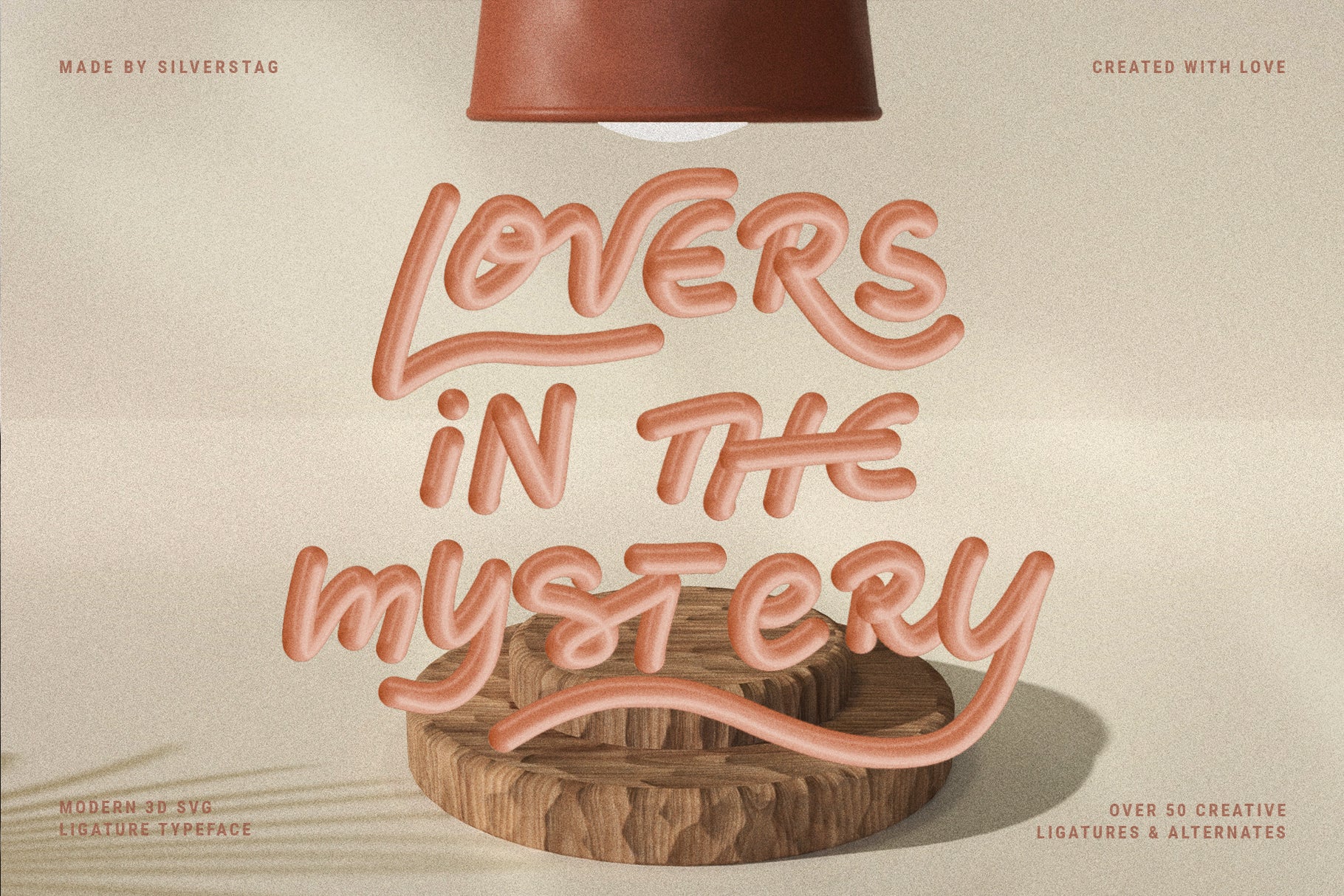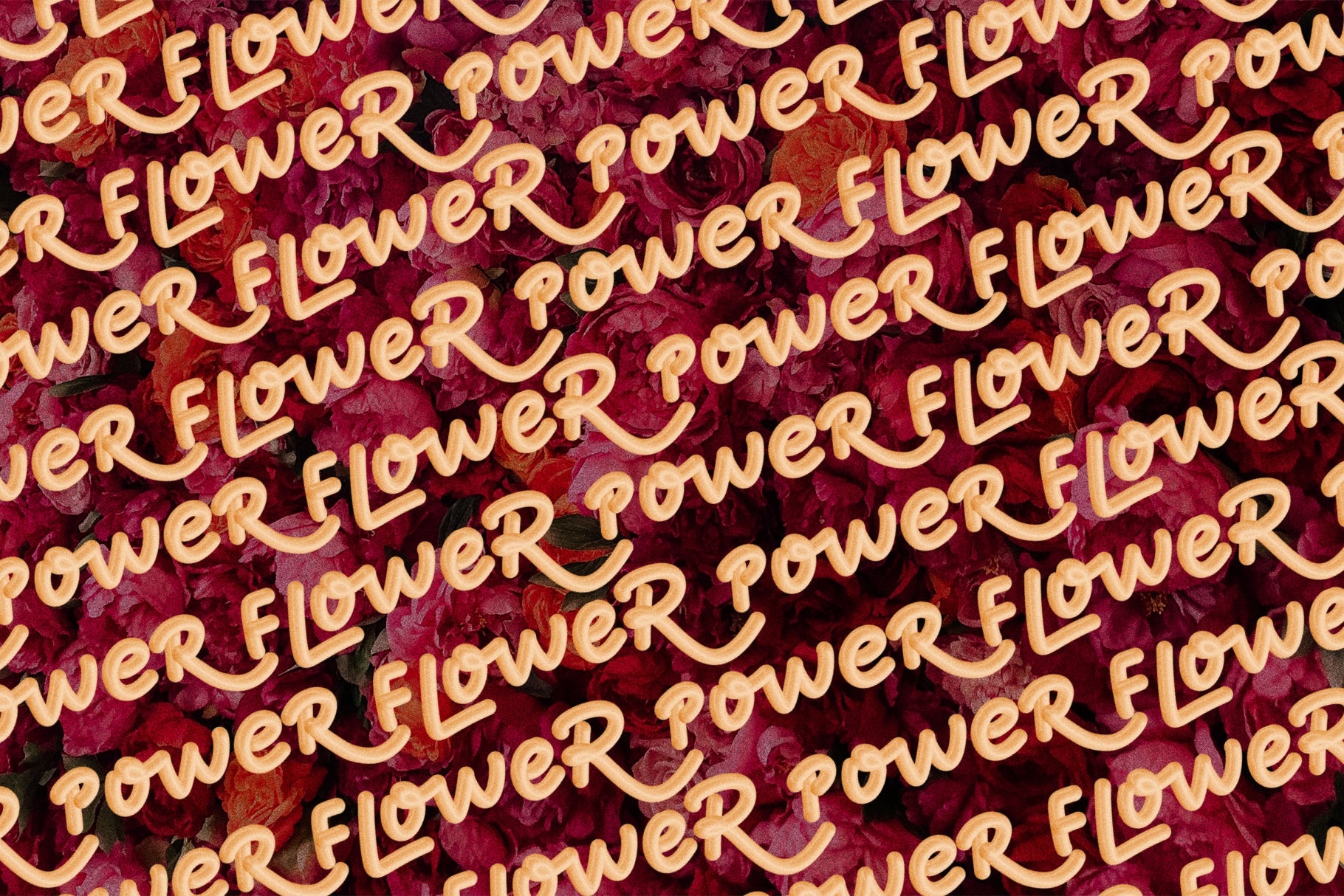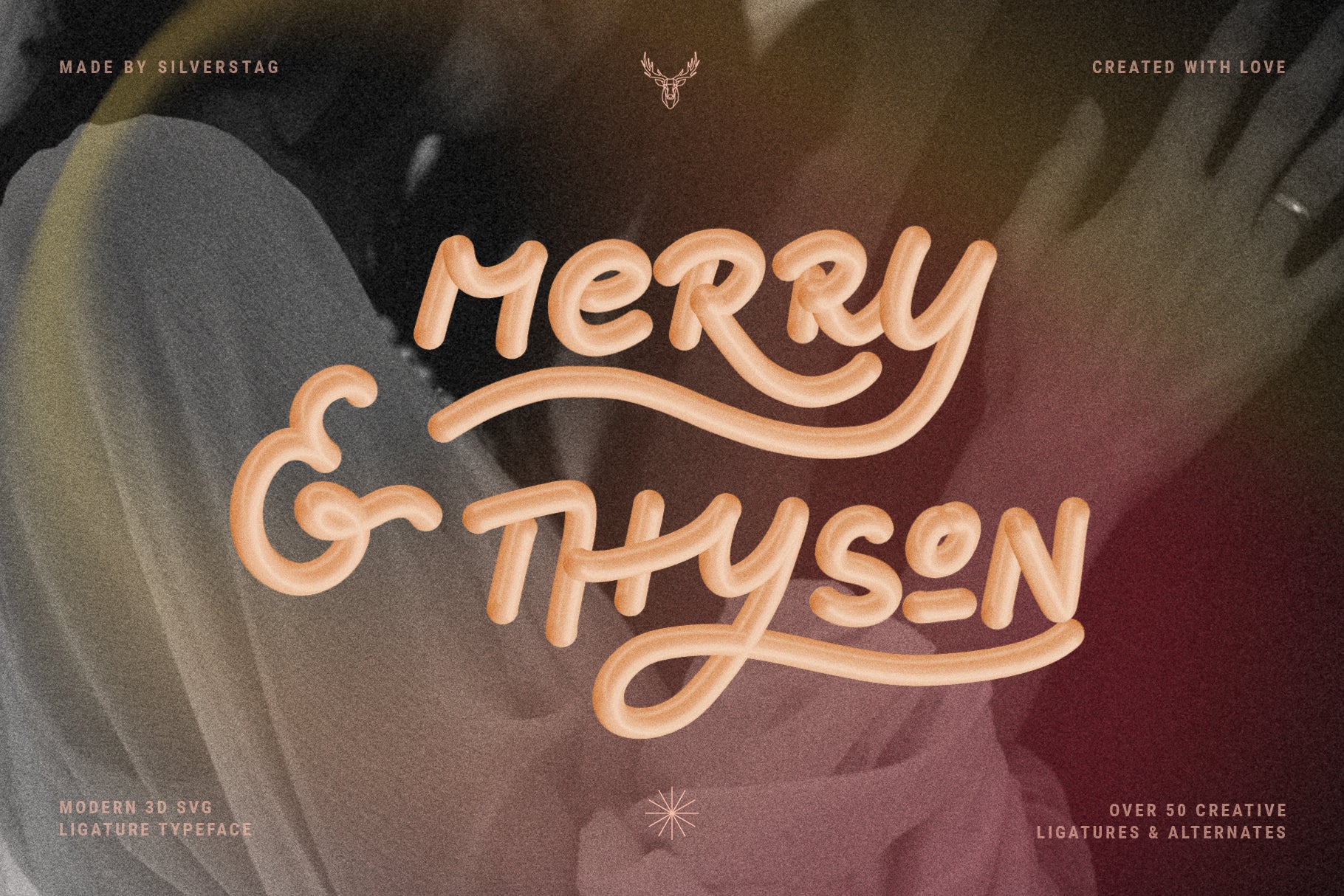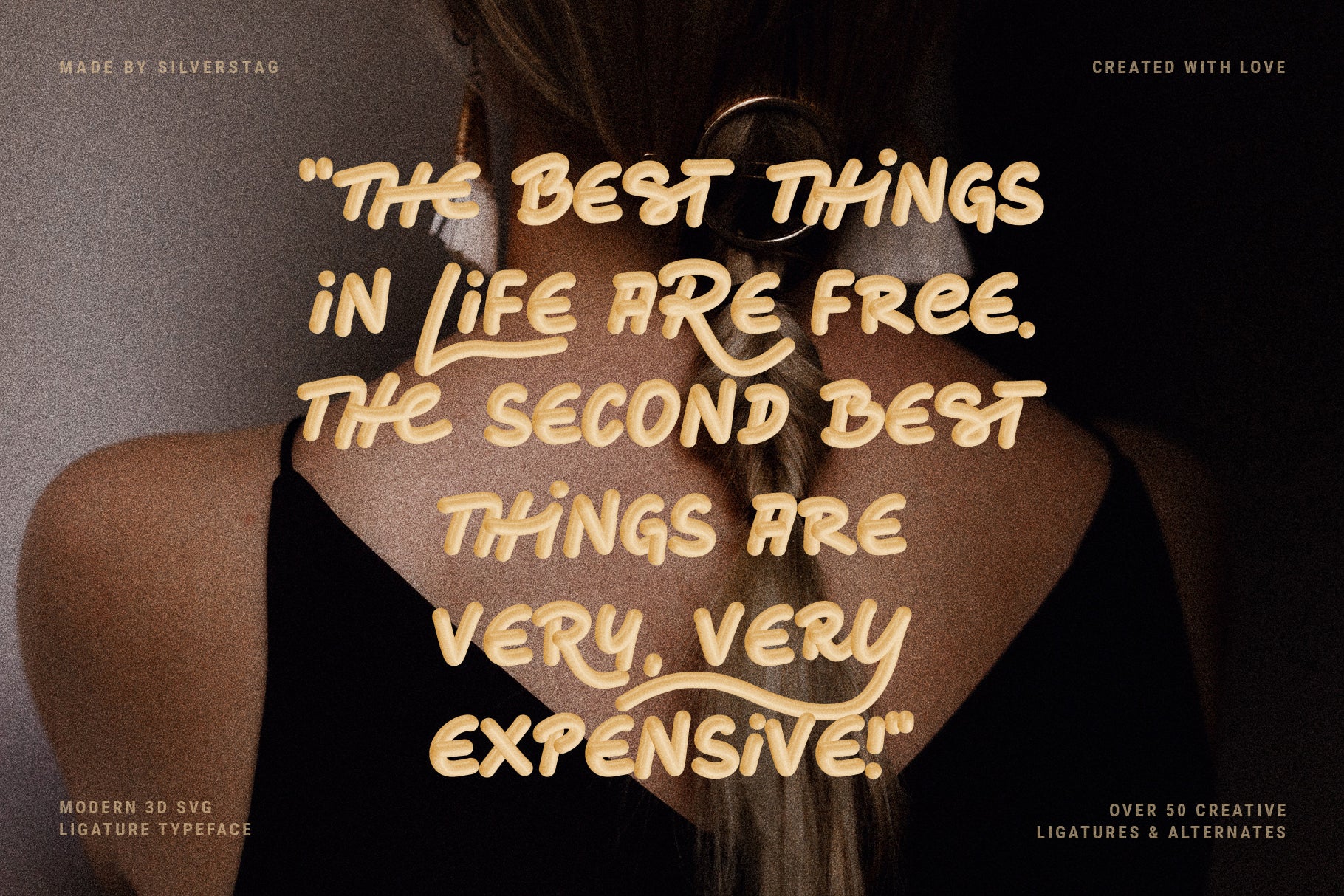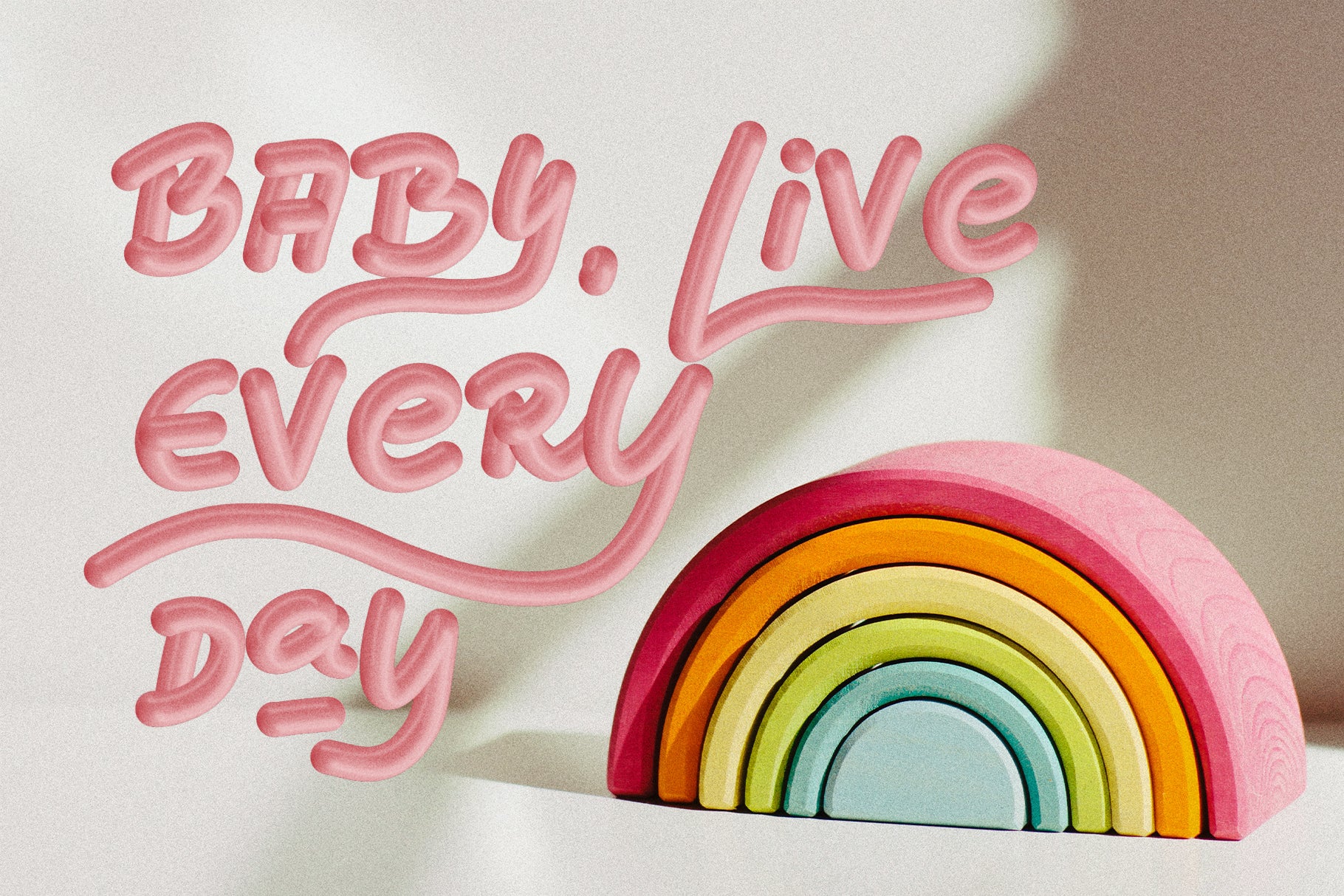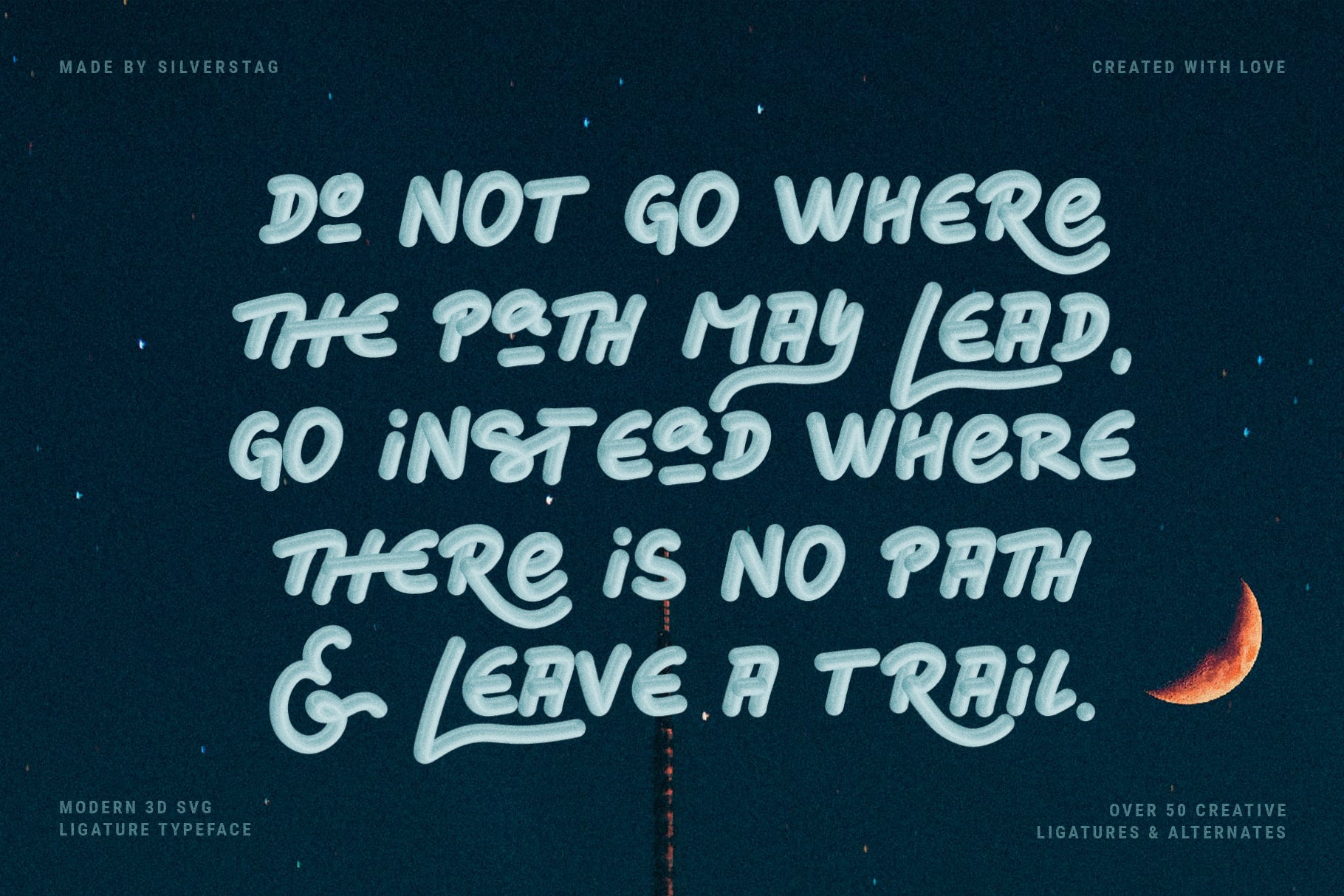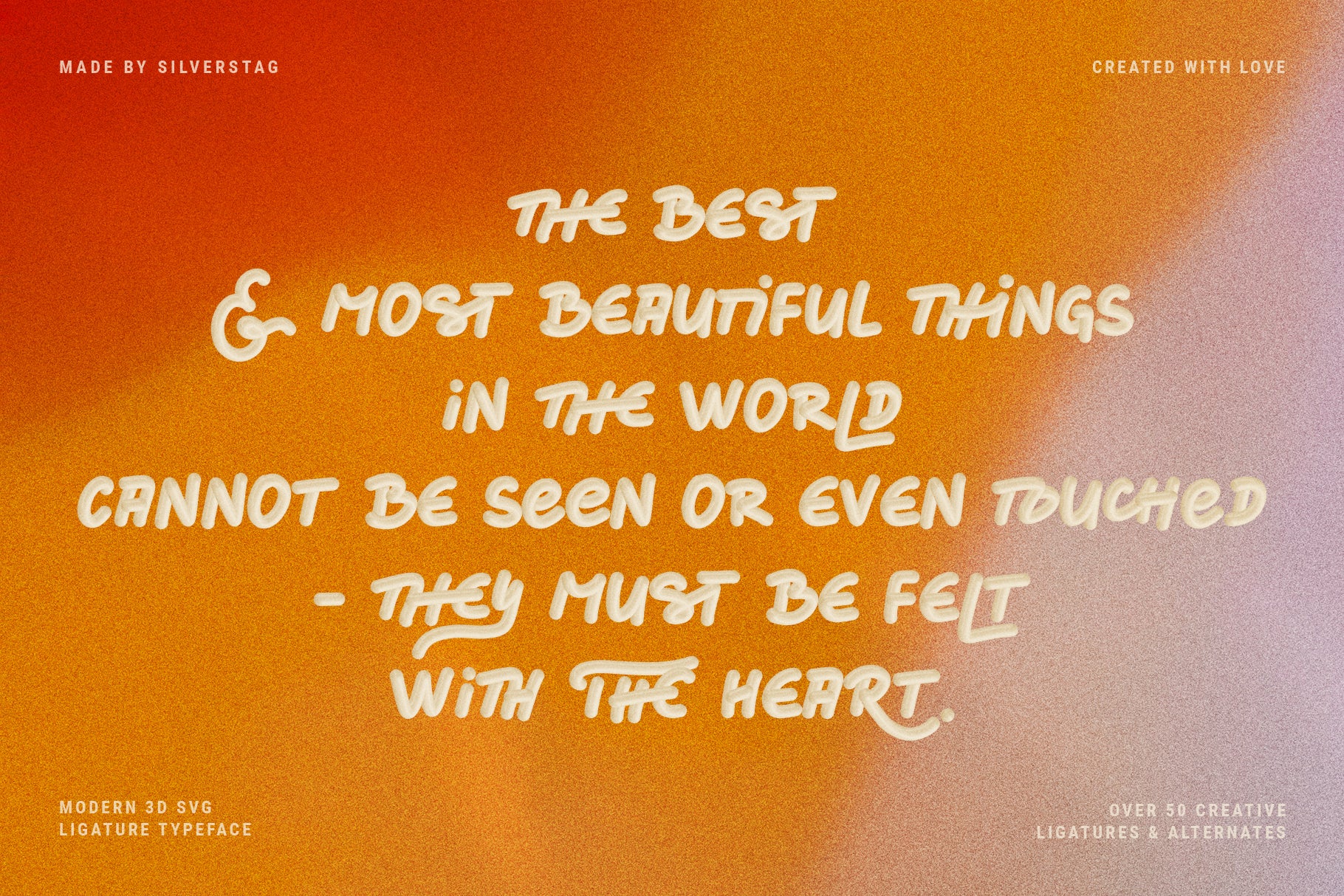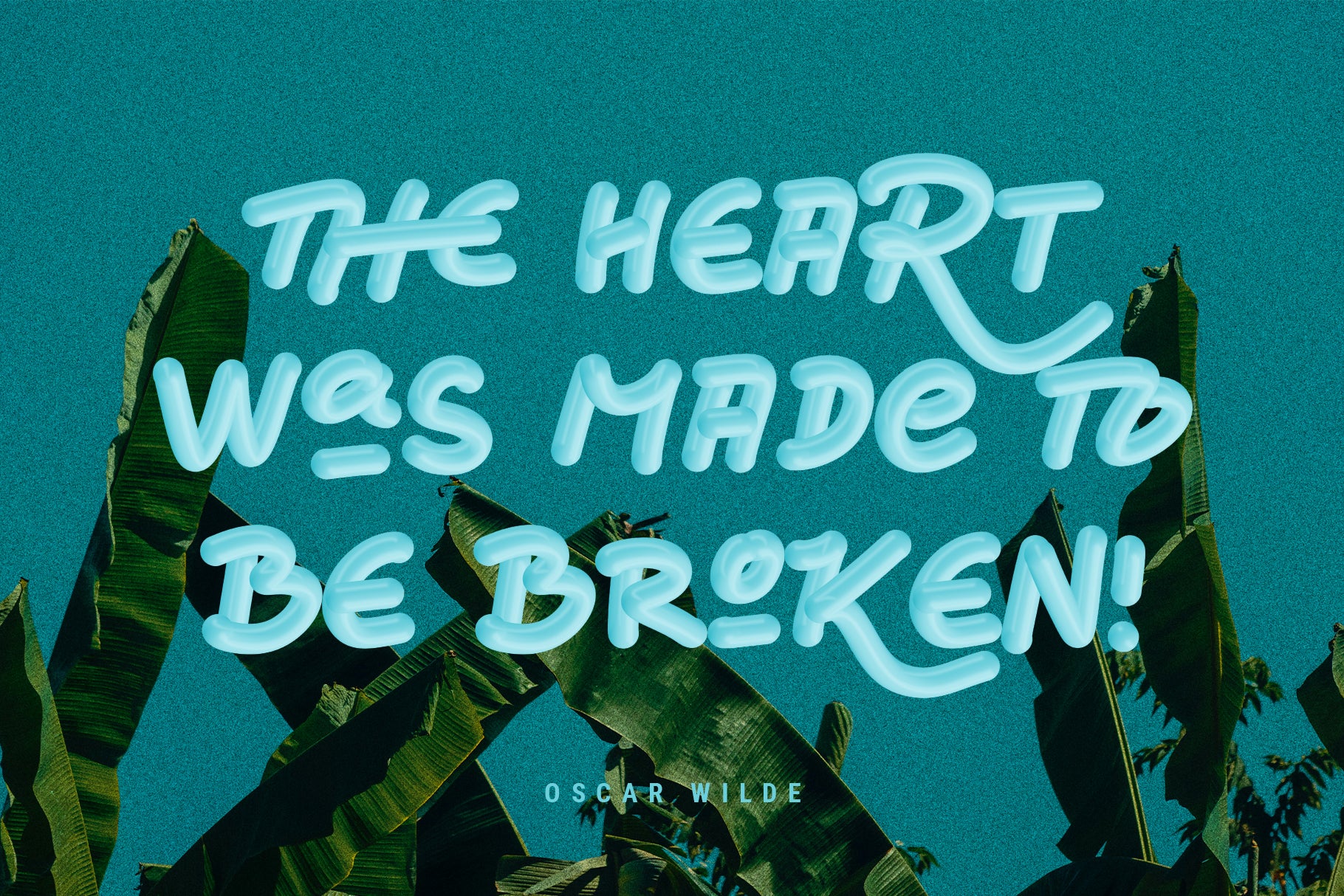
Cherry & Thyme - 3D SVG Typeface
Say hello to Cherry & Thyme, a bold experiment in typography — a truly handwritten 3D SVG font that brings your designs to life with vivid texture and dimension. Perfect for anyone seeking a fresh, playful, and completely unique look, this font captures the spirit of creativity and springtime renewal.
With over 50 unique ligatures and alternates, Cherry & Thyme gives you endless ways to add an authentic hand-crafted touch to your projects. Whether you’re designing standout logos, eye-catching posters, or lively social media graphics, this typeface delivers a dynamic and memorable visual impact.
The font includes both a 3D SVG version—which shows off the rich, realistic brush texture—and a standard version for maximum compatibility and easy use across all design platforms.
Bring your typography to life with the playful spirit of Cherry & Thyme—perfect for creative projects that deserve a bold and fresh aesthetic.